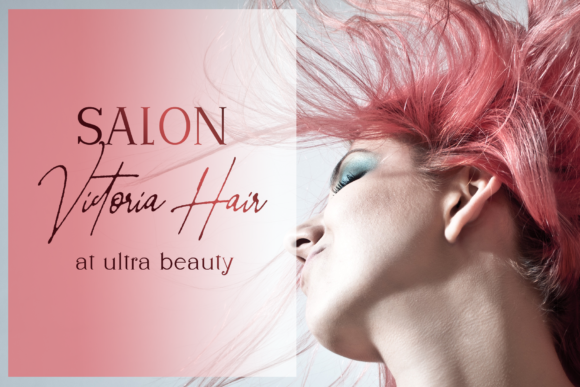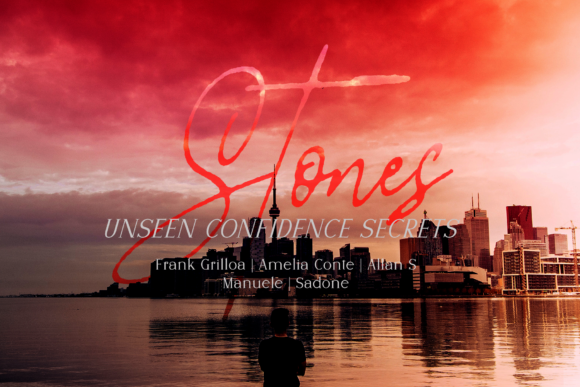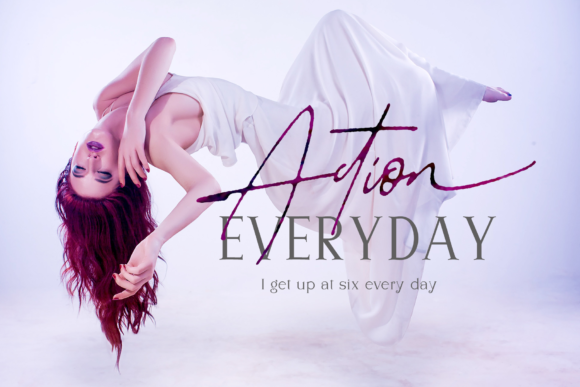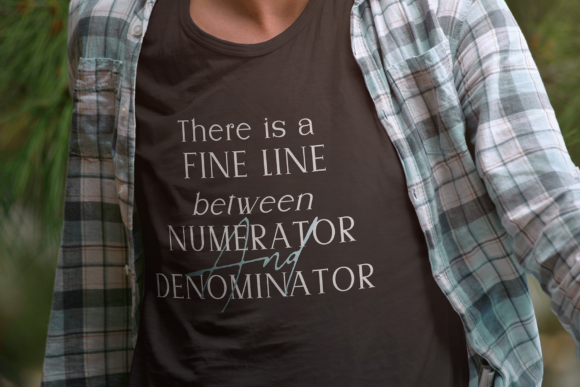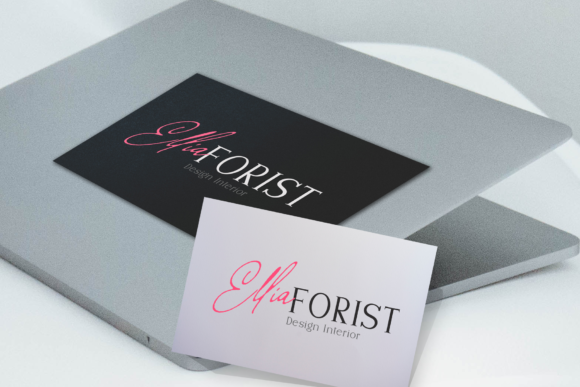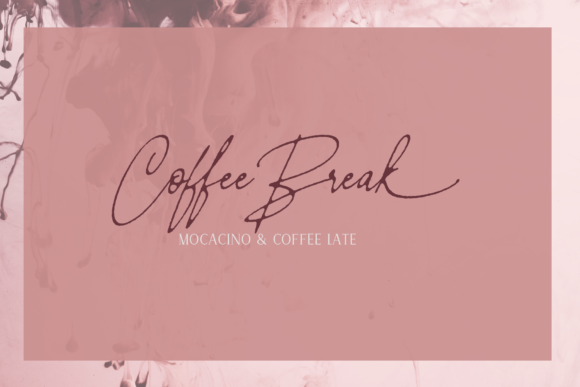
The Perfect Pair: Angelica Feat Nathalia Font
As a designer, I’ve had my fair share of frustrating moments while working on a project. One of those moments was when I was tasked with creating a wedding invitation suite for a lovely couple. I had a clear vision of what I wanted to achieve, but the fonts I was working with just weren’t cooperating. The script font I had chosen was too ornate, and the serif font was too bland. It was then that I stumbled upon the Angelica Feat Nathalia duo, and let me tell you, it was a match made in heaven! 💕
A Match Made in Heaven
The Angelica Feat Nathalia duo is a perfect combination of two beautiful fonts. Angelica is a script font with a typical handwriting style, while Nathalia is a normal and italic serif font with delicate and gentle characteristics. This pairing will elevate a wide range of design projects to the highest level, be it branding, headings, wedding designs, invitations, signatures, logos, labels, and much more!
- ✨ The Angelica script font has a beautiful, flowing handwriting style that’s perfect for adding a personal touch to any design.
- ✅ The Nathalia serif font is incredibly versatile, with both normal and italic styles that can be used for body text or headings.
- 💫 The combination of the two fonts creates a stunning visual contrast that’s sure to grab attention.
- 🎉 The fonts are incredibly easy to read, even at small sizes.
While I absolutely love the Angelica Feat Nathalia duo, there are a few small quirks to be aware of. 🤔
- ⚠️ The Angelica script font can be a bit tricky to use at very small sizes, as some of the details may get lost.
- ⚠️ The Nathalia font doesn’t have a bold style, which may limit its use in certain design applications.
The Angelica Feat Nathalia duo was inspired by the beautiful work of Jessica Hische, a talented designer and letterer known for her elegant and feminine designs. The fonts were created to capture the essence of Jessica’s style, with a focus on delicate lines, flowing curves, and a touch of whimsy.
| Font Name | Angelica Feat Nathalia Font |
| Author | Artisans |
Q: Are there any limitations to using the Angelica Feat Nathalia duo?
A: While the Angelica Feat Nathalia duo is incredibly versatile, there are some limitations to be aware of. For example, the Angelica script font may not be suitable for very small sizes, and the Nathalia font doesn’t have a bold style.